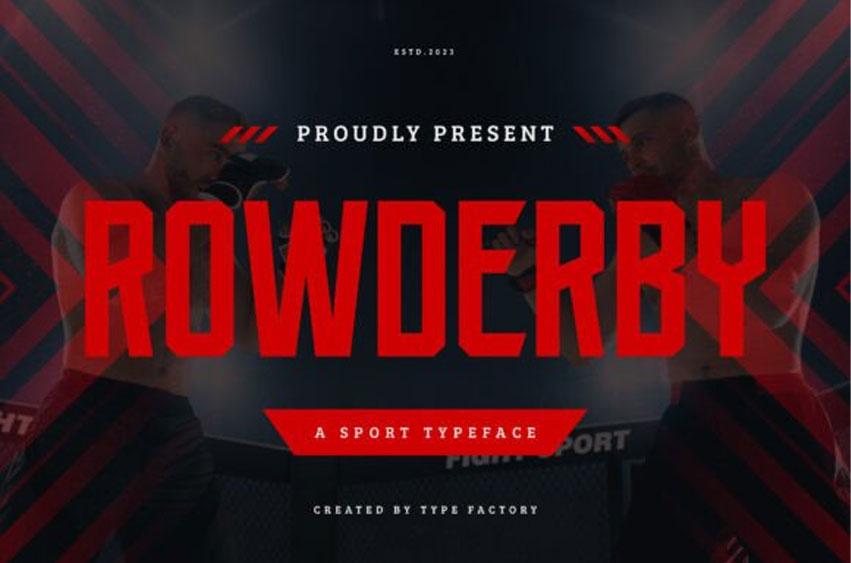
Rowderby Font
Rowderby Font Unleash the spirits of vigorous competition and athletic dynamism with the Rowderby typeface. Its robust, angular letterforms exude strength and speed, an ideal choice for jersey insignias, team branding, inspirational posters, and promotional collaterals that evoke the exhilaration of sport.
Rowderby encapsulates motion and action in its unique stroke. Driving a visual appeal that reverberates with athletes and enthusiasts, this multi-purpose typeface elevates your sports-related designs, seamlessly creating an identity that marks its presence and resonates with its viewers.
Be it for merchandise or event campaign, let the bold and striking Rowderby set the pace.